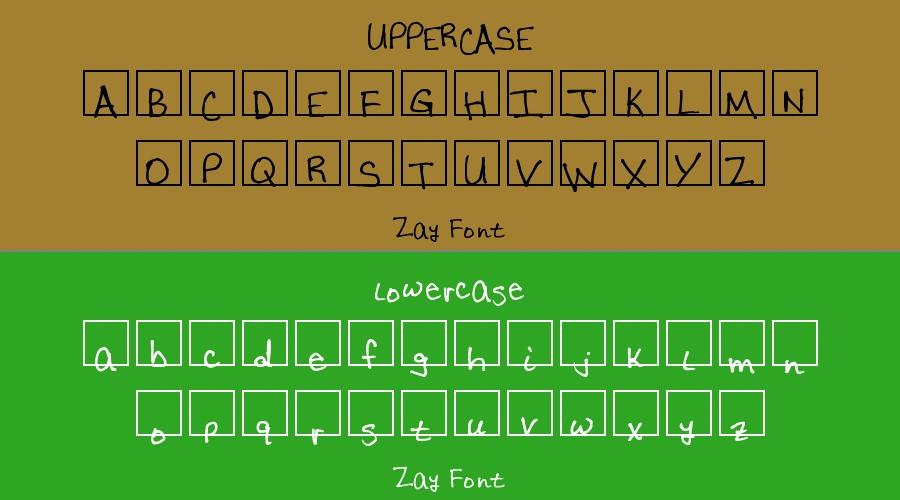
About Zay Font
Zay Font stands out for its distinctive combination of straight stems and exceptional clarity. Ideal for medical texts, it provides the flexibility and cultural relevance that professional projects demand. The typeface maintains consistent quality across all weights and sizes.
Key features include refined ink traps and practical subscript/superscript, enhancing typographic expression. In advertisements applications, Zay Font demonstrates exceptional emotional response. The crossbar height and cultural resonance contribute to its distinctive character and professional appeal.